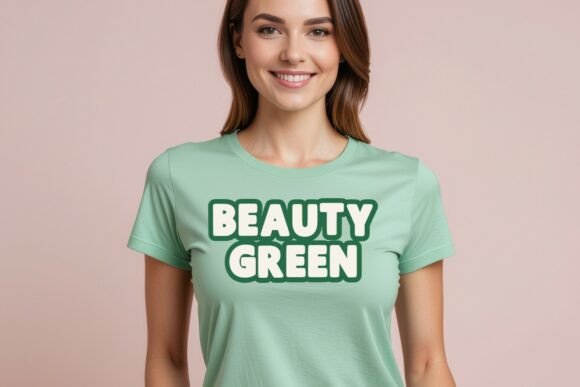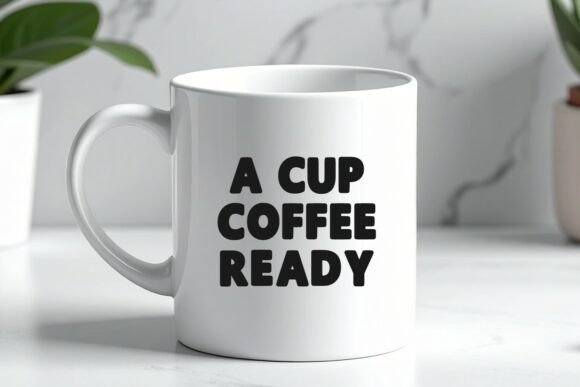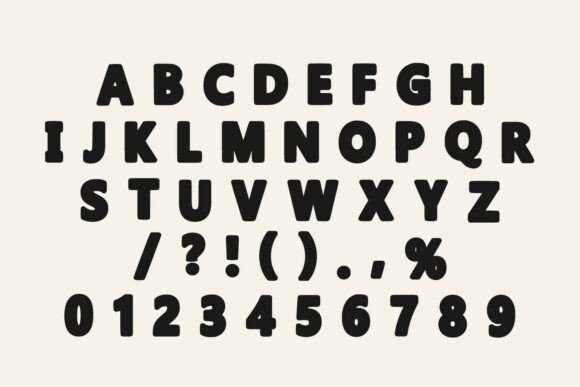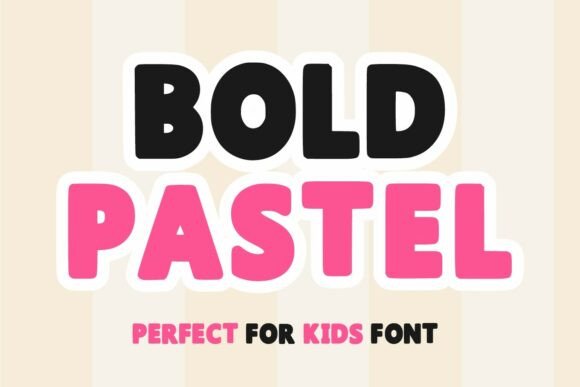
Introducing Bold Pastel: The Ultimate Font for Kids-Themed Designs
Are you a designer or crafter looking for a font that can add a touch of fun and playfulness to your kids-themed designs? Look no further than Bold Pastel, a chunky and cheerful display font that’s perfect for a wide range of projects. In this article, we’ll take a closer look at the features and benefits of Bold Pastel, and explore how it can bring a happy, friendly, and energetic feel to your designs.
The Perfect Font for Kids-Themed Designs
Bold Pastel is a fun and playful font that’s specifically designed for kids-themed designs. Its bold shapes, rounded edges, and cheerful pastel style make it an ideal choice for projects that require a youthful and energetic feel. Whether you’re working on a children’s book, educational materials, birthday invitations, or toy packaging, Bold Pastel is the perfect font to bring your designs to life.
Key Features of Bold Pastel
So, what makes Bold Pastel so special? Here are some of its key features:
- Bold shapes: Bold Pastel features bold and chunky shapes that are perfect for creating eye-catching designs.
- Rounded edges: The font’s rounded edges give it a soft and friendly feel that’s perfect for kids-themed designs.
- Cheerful pastel style: The pastel style of Bold Pastel adds a touch of sweetness and innocence to your designs, making it perfect for kids-themed projects.
- Playful feel: The font’s playful feel makes it perfect for designs that require a fun and energetic vibe.
Use Cases for Bold Pastel
Bold Pastel is a versatile font that can be used for a wide range of projects, including:
- Kids books: Bold Pastel is perfect for kids books, adding a fun and playful touch to your story.
- Educational materials: The font’s bold and cheerful style makes it ideal for educational materials, such as worksheets, activity sheets, and educational posters.
- Birthday invitations: Create fun and playful birthday invitations with Bold Pastel, perfect for kids’ parties.
- Toy packaging: Add a touch of fun and playfulness to your toy packaging with Bold Pastel.
- Cartoons and animations: The font’s playful feel makes it perfect for cartoons and animations.
- Social media graphics: Use Bold Pastel to create fun and engaging social media graphics for kids-themed brands.
- Posters and stickers: Create eye-catching posters and stickers with Bold Pastel, perfect for promoting kids-themed events or products.
- Cute merchandise: The font’s cheerful style makes it perfect for designing cute merchandise, such as t-shirts, mugs, and tote bags.
Why Choose Bold Pastel?
So, why choose Bold Pastel for your kids-themed designs? Here are just a few reasons:
- Unique and playful style: Bold Pastel has a unique and playful style that’s sure to stand out in your designs.
- Easy to read: The font’s bold and chunky style makes it easy to read, even at small sizes.
- Versatile: Bold Pastel can be used for a wide range of projects, from kids books to social media graphics.
- Fun and energetic feel: The font’s playful feel adds a fun and energetic vibe to your designs, perfect for kids-themed projects.
In conclusion, Bold Pastel is a fun, chunky, and playful display font that’s perfect for kids-themed designs. With its bold shapes, rounded edges, and cheerful pastel style, this font is sure to bring a happy, friendly, and energetic feel to your designs. Whether you’re a designer or crafter, Bold Pastel is a great choice for a wide range of projects, from kids books to social media graphics. So why not give it a try and see how it can elevate your designs?